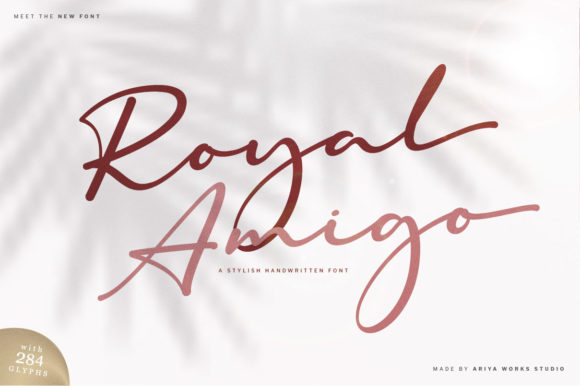
Buckle up for a typographic adventure with Royal Amigo, the signature script font that's bound to turn heads! Bathed in grace and elegance, this font is not just a collection of letters; it's a gateway to a world of creative possibilities.
Crafted with care by the talented hands at Ariya Works Studio, Royal Amigo is a script font that exudes sophistication and charm. Its graceful curves and playful swashes dance across the page, adding a personal touch to your designs.
Imagine your logo, adorned with the sweeping strokes of Royal Amigo, standing out from the crowd with an allure that's impossible to resist. Elevate your branding projects with a font that speaks volumes, capturing the essence of your brand and leaving a lasting impression on your audience.
With Royal Amigo, your designs will transcend the ordinary and enter the realm of the extraordinary. Let your creativity soar as you create stunning labels, photography, watermarks, and special event invitations that radiate elegance and personality.
The versatility of Royal Amigo is truly remarkable. Its delicate charm lends itself perfectly to wedding invitations, adding a touch of romance and whimsy to your special day. Send your guests swooning over your choice of font as they witness the magic of Royal Amigo unfold before their eyes.
But don't stop there! Royal Amigo's allure extends far beyond the traditional. Its distinctive style adds a touch of enchantment to social media posts, blog headers, and even product packaging. Let your imagination run wild as you explore the endless possibilities that await you with this captivating script font.
The beauty of Royal Amigo lies not only in its visual appeal but also in its ease of use. Encoded with PUA, this font grants you effortless access to a treasure trove of glyphs and swashes. Unleash your creativity without limits, knowing that the perfect characters for your project are just a click away.